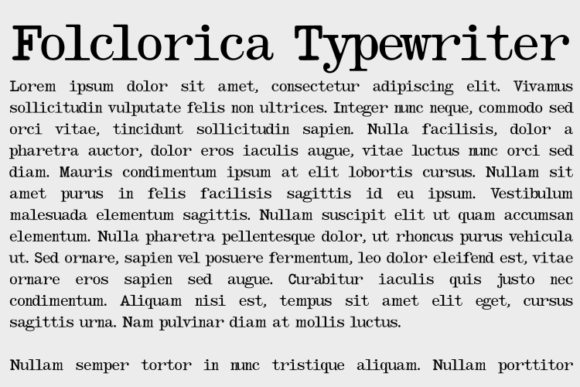
In a world where individuality and authenticity reign supreme, Folclorica Typewriter Font emerges as a beacon of creativity, inviting you to embark on a captivating journey into the realm of typography. Inspired by the nostalgic charm of vintage typewriters, this font family masterfully captures the essence of handwritten letters, offering a distinctive and expressive touch to your digital creations.
Step into the world of Folclorica Typewriter and immerse yourself in its rich tapestry of characters, each meticulously crafted to convey depth and emotion. With a distinct Serif style, this font exudes an air of sophistication and elegance, harkening back to an era of literary masterpieces and timeless correspondence.
At its core, Folclorica Typewriter embodies the spirit of exploration and self-expression. Whether you're a seasoned designer seeking to elevate your projects or a budding entrepreneur eager to make a lasting impression, this font family empowers you to unleash your creativity and leave an indelible mark on the digital landscape.
Harness the versatility of Folclorica Typewriter to transform your marketing videos into captivating experiences. Its unique style adds a layer of intrigue and authenticity, drawing viewers into your message and leaving a lasting impression. Create promotional materials that resonate with your audience, captivating their attention and driving them towards your desired action.
Folclorica Typewriter isn't just a font; it's an invitation to embrace the extraordinary. With its vintage charm and modern elegance, this font family breathes life into your designs, allowing you to craft digital masterpieces that stand out from the mundane.
Let Folclorica Typewriter ignite your creative spirit and embark on a journey of self-expression. Experience the allure of authenticity and watch as your designs take on a life of their own. Download Folclorica Typewriter today and unleash the boundless potential of your imagination.